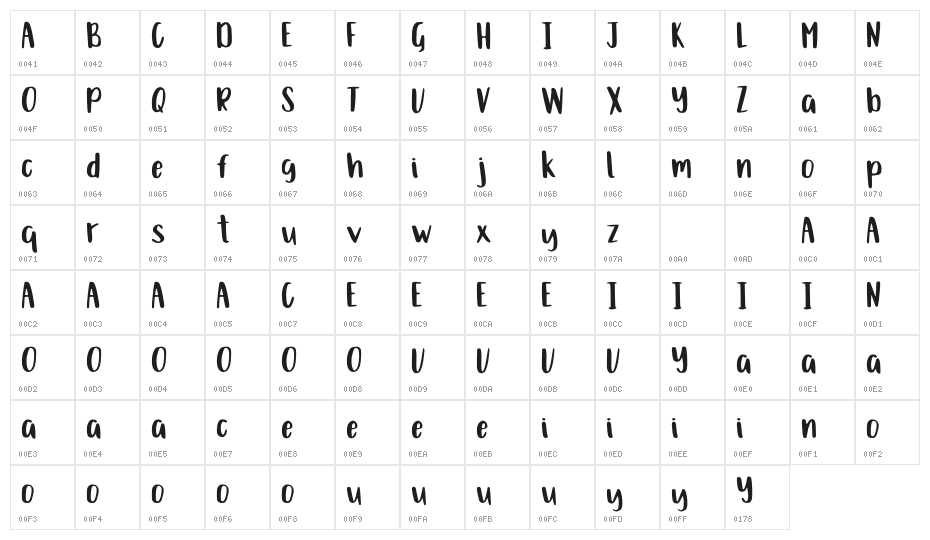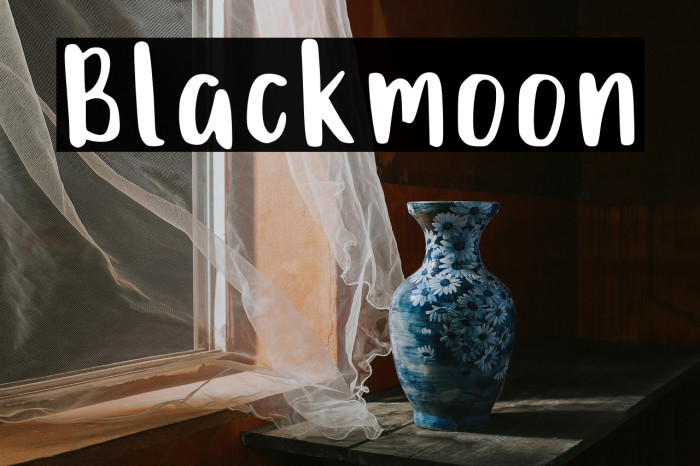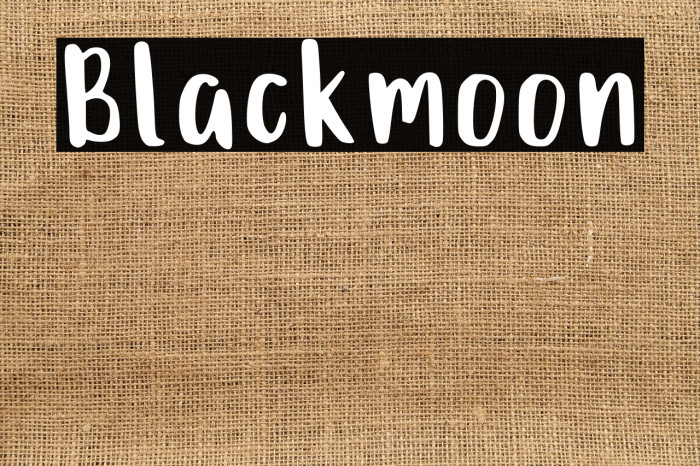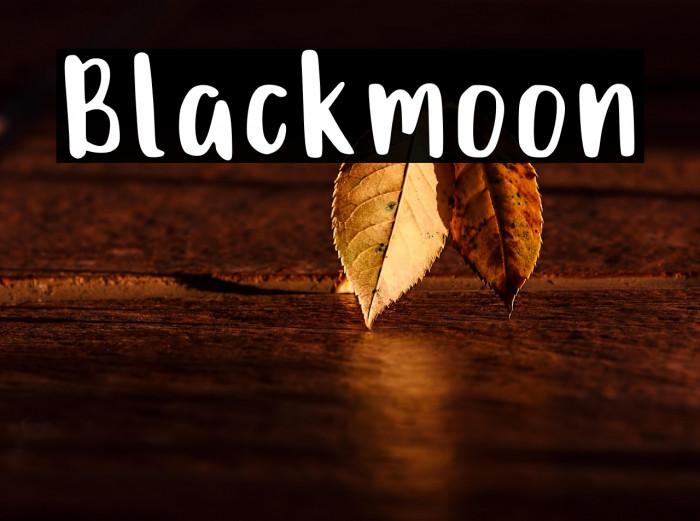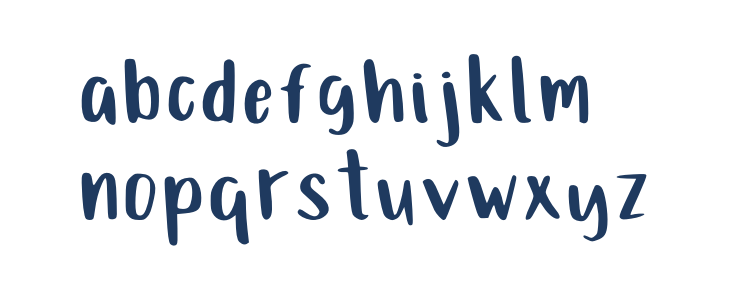
Blackmoon Font
Blackmoon Description
This font features a playful and bold handwritten style, characterized by its thick strokes and slightly irregular shapes that give it a casual and friendly appearance. The uppercase letters are tall and slightly narrow, while the lowercase letters maintain a consistent height, adding to the font's cohesive look. The overall design is informal yet legible, making it suitable for a variety of creative projects. The absence of serifs and the rounded edges contribute to its approachable and modern feel. This font is ideal for designs that require a personal touch, such as invitations, greeting cards, and playful branding materials.
| Overall Style | Playful, Casual |
| Proposed Projects | Ideal for invitations, greeting cards, playful branding, and creative projects. |